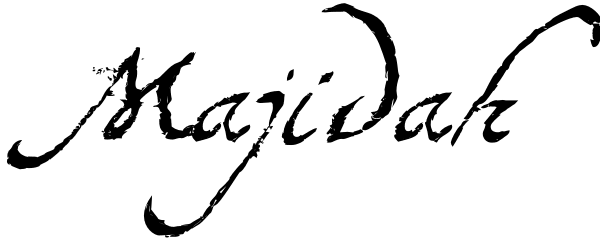
Majidah
Majidah is an attempt to replicate the look and feel of an ancient script taken from the pages of an antique document. It has a Middle Eastern feel to it, but could be used for a wide range of applications. Majidah includes a number of OpenType...
Majidah
Majidah Potens